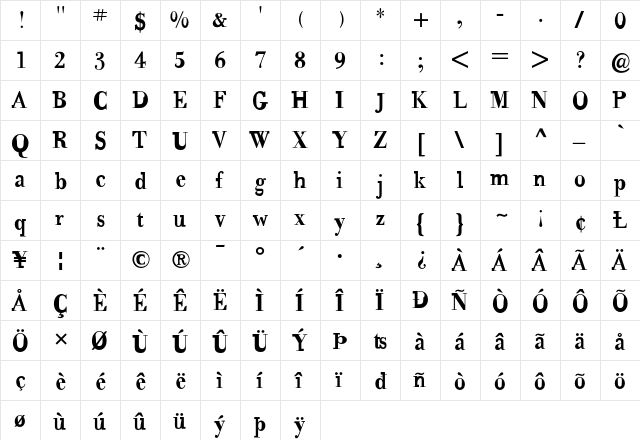
CanadianPhotographer Regular
Design Context for CanadianPhotographer Typeface
CanadianPhotographer is a composed and adaptable typeface that performs quietly and consistently across a wide range of design contexts.